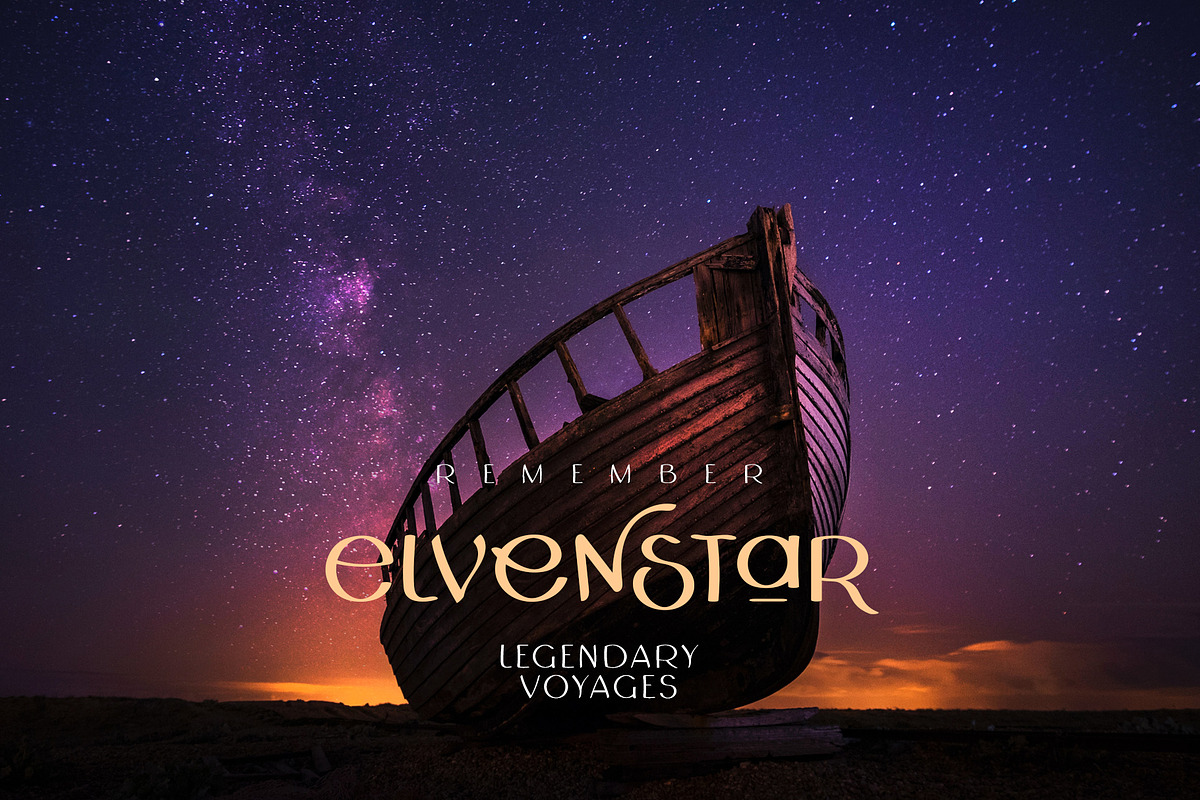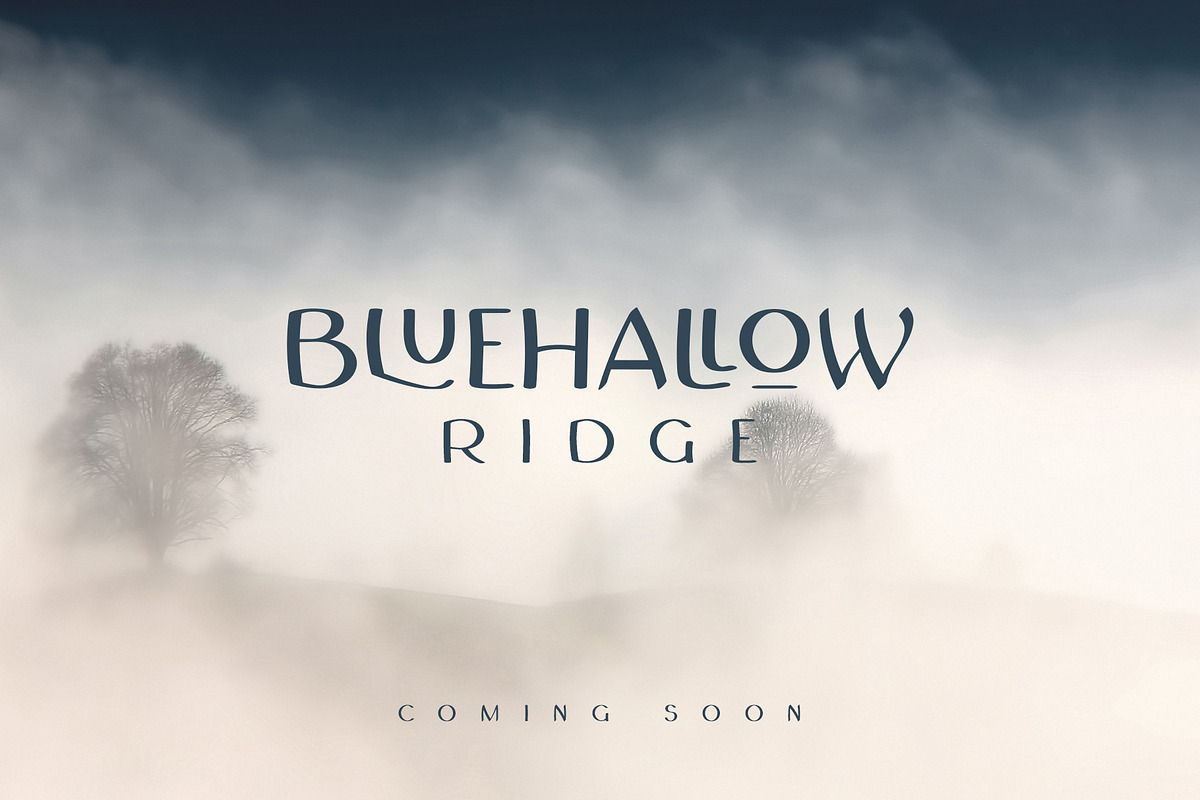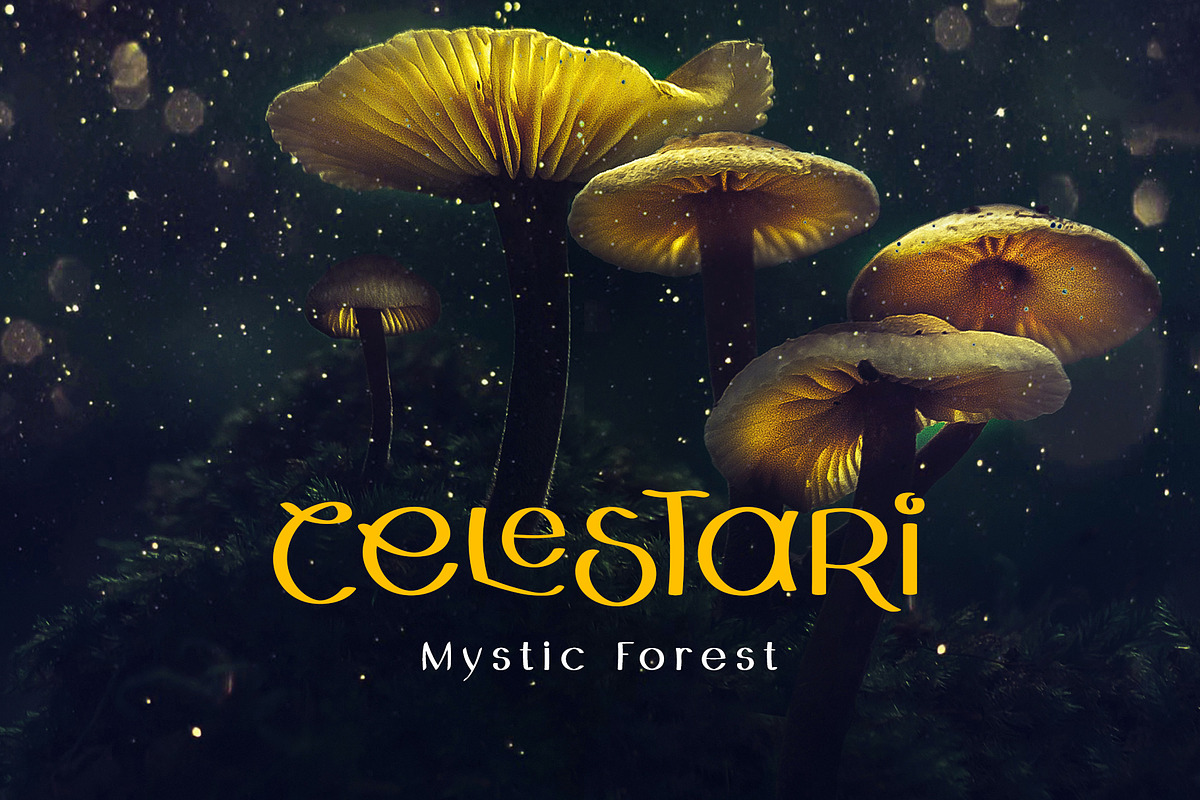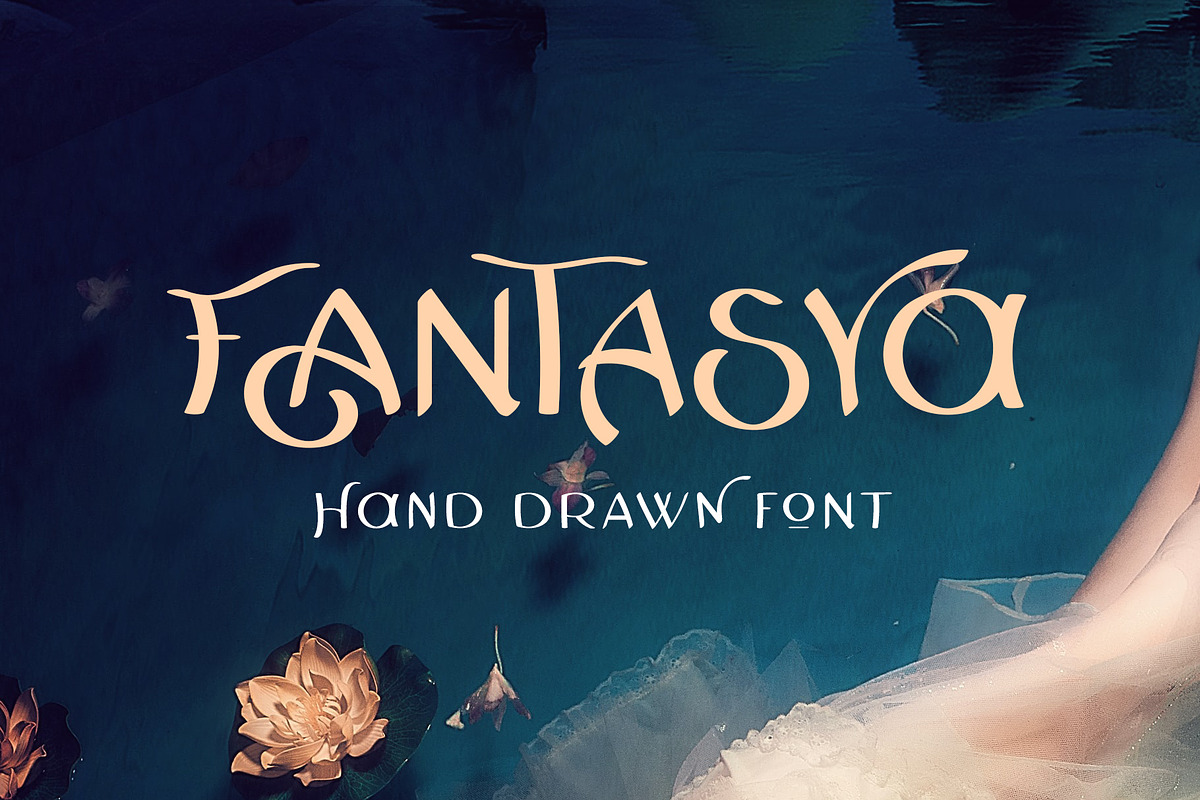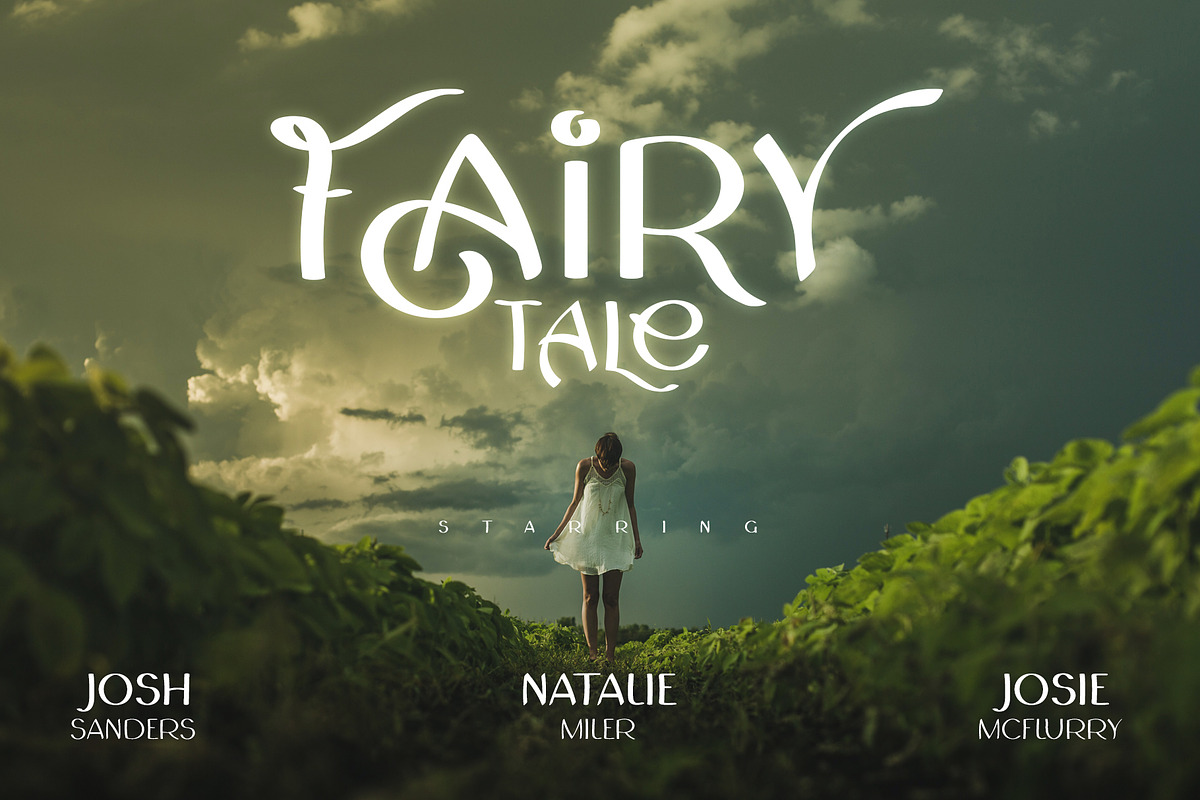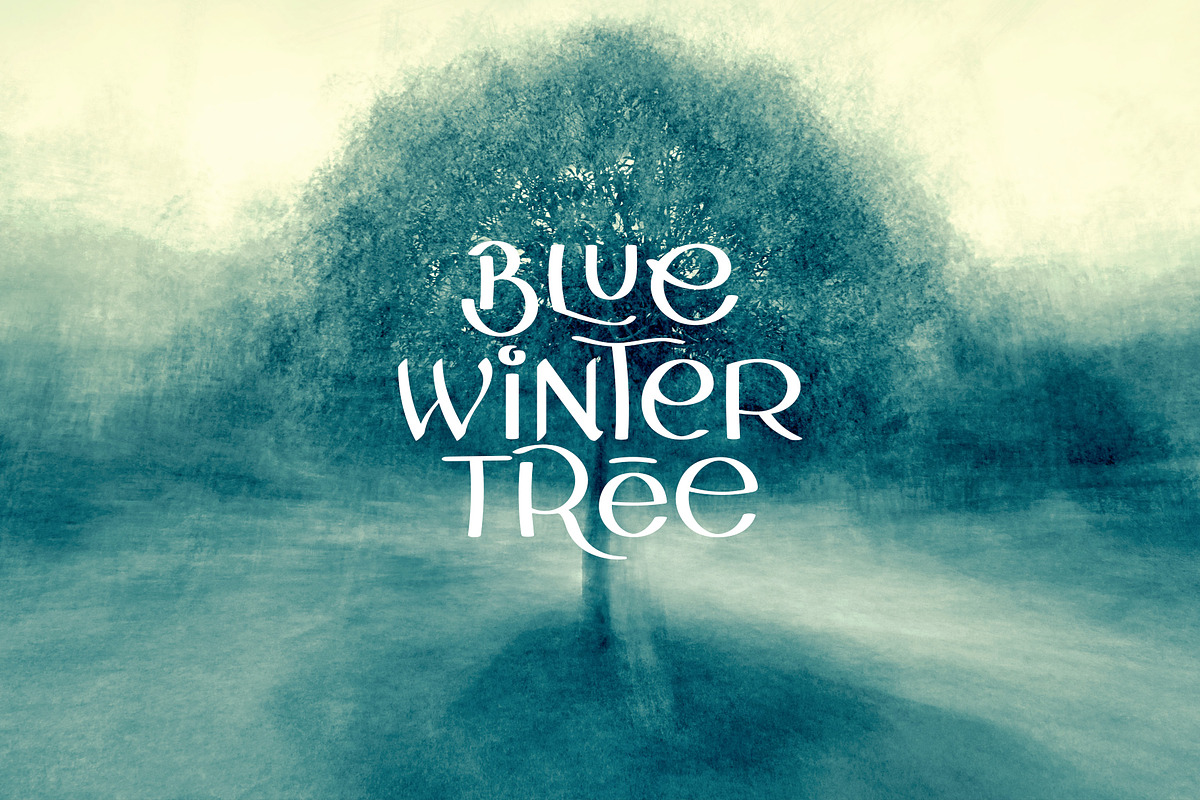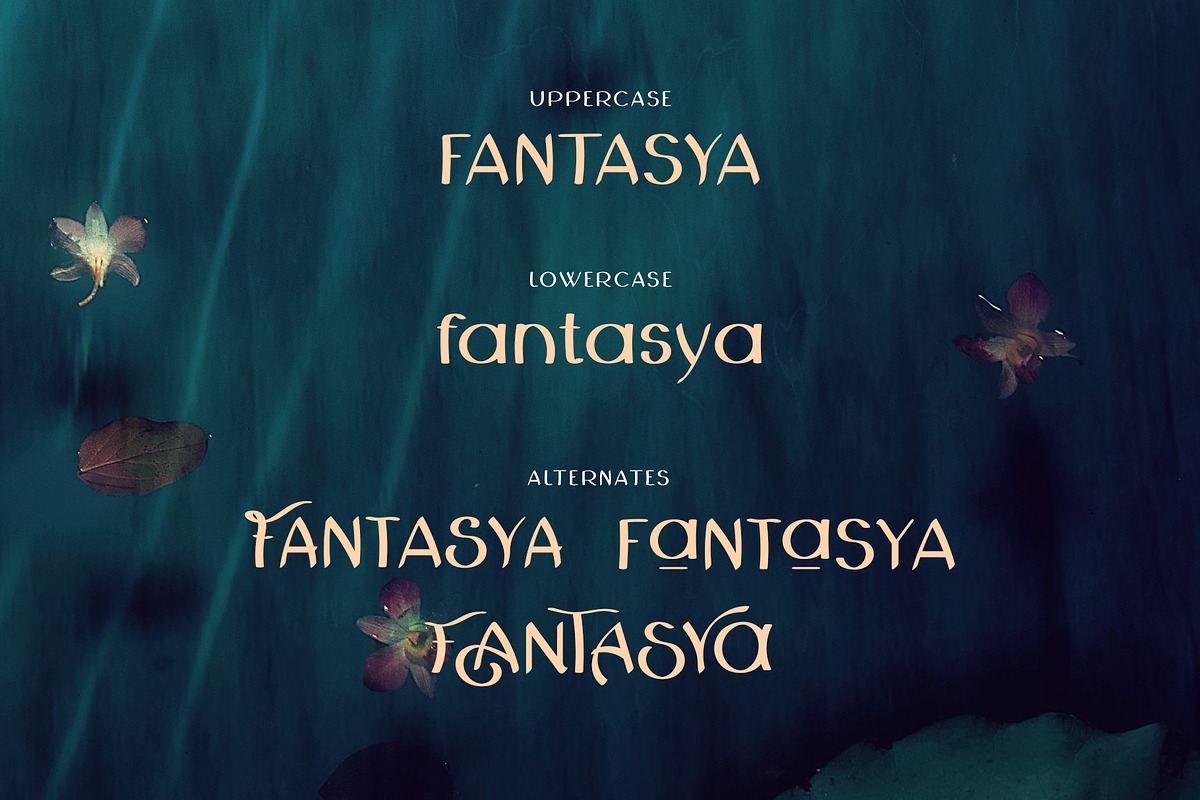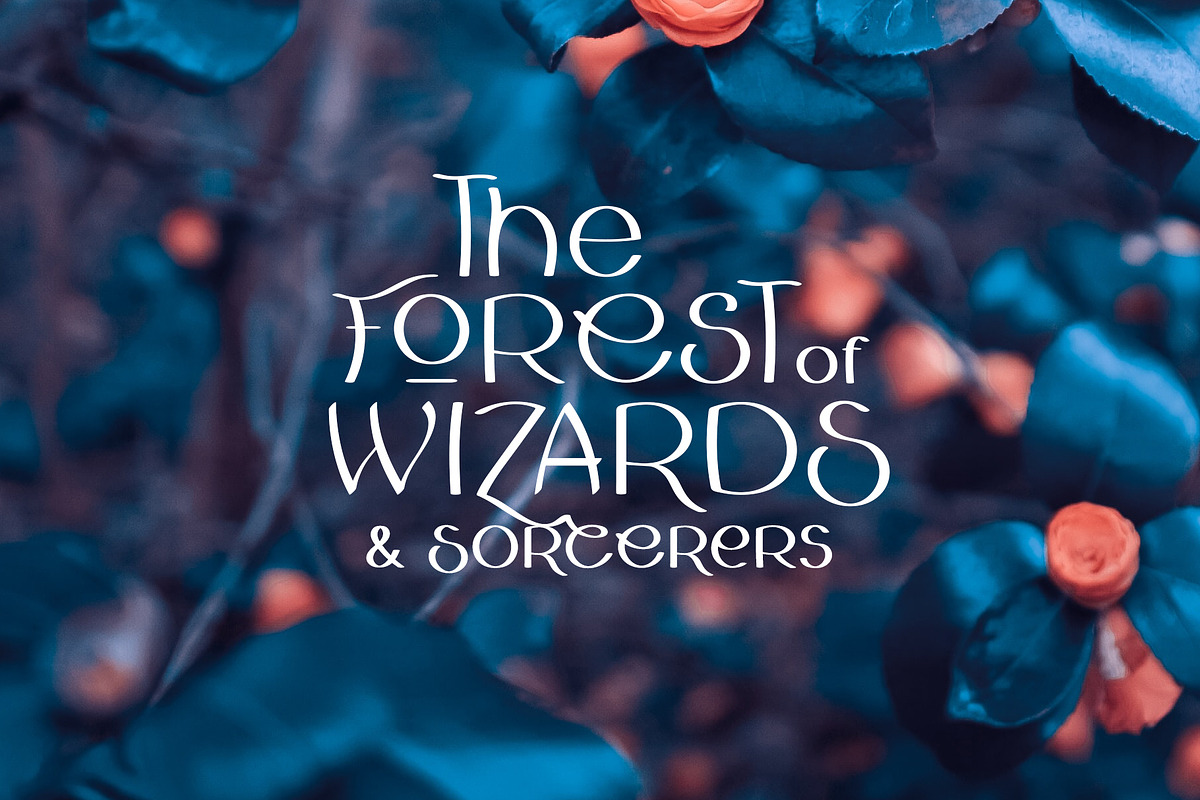
Fantasya Hand Drawn Font
Fantasya is a fun display font perfect to create titles for books,games, movies or any other kind of publishing or production in the fantasy genre and more! Each uppercase letter has at least 3 other alternatives to choose from and this allows for a multitude of letter combination that will result is so many different designs
Uppercase and lowercase
Numerals and punctuation
Alternates and ligatures